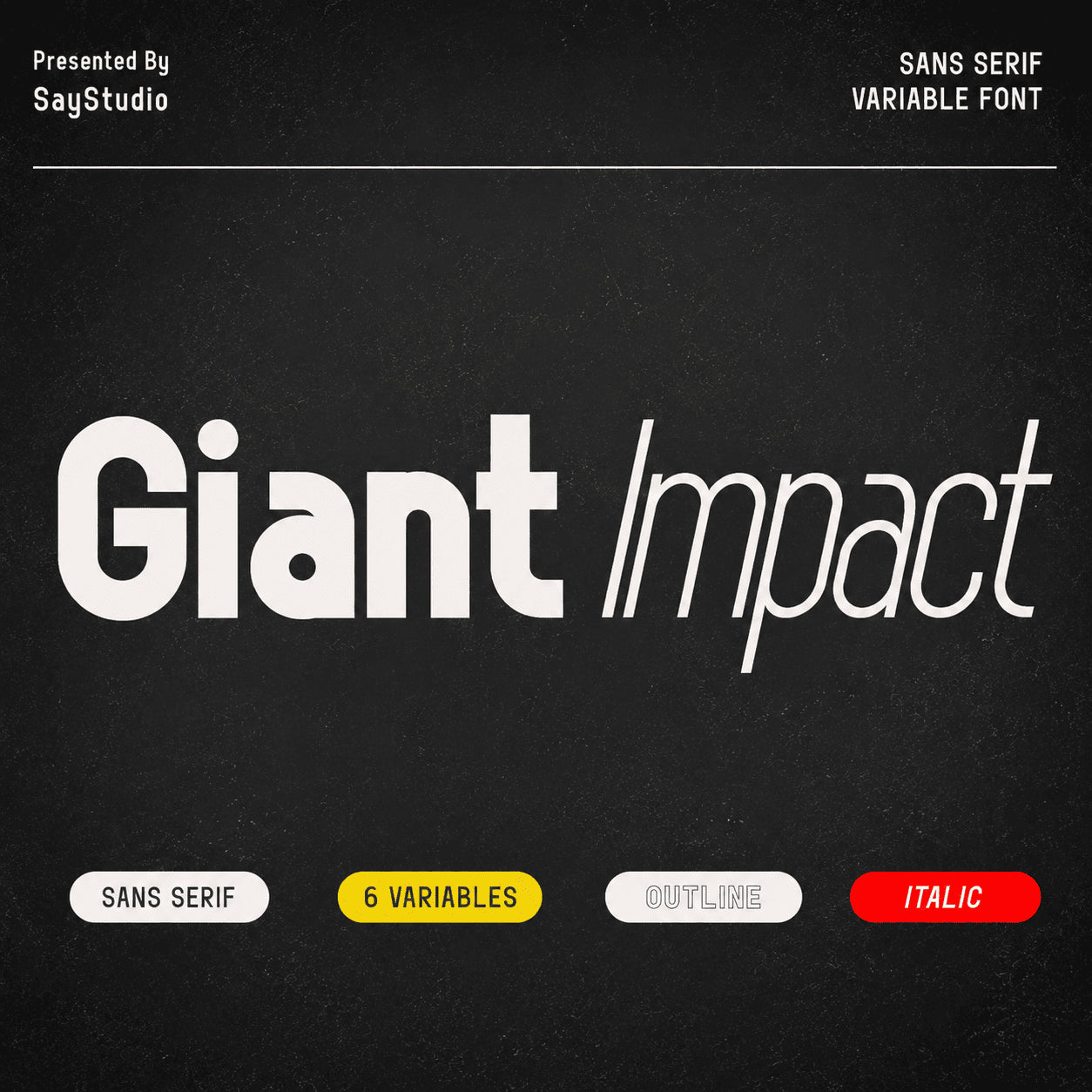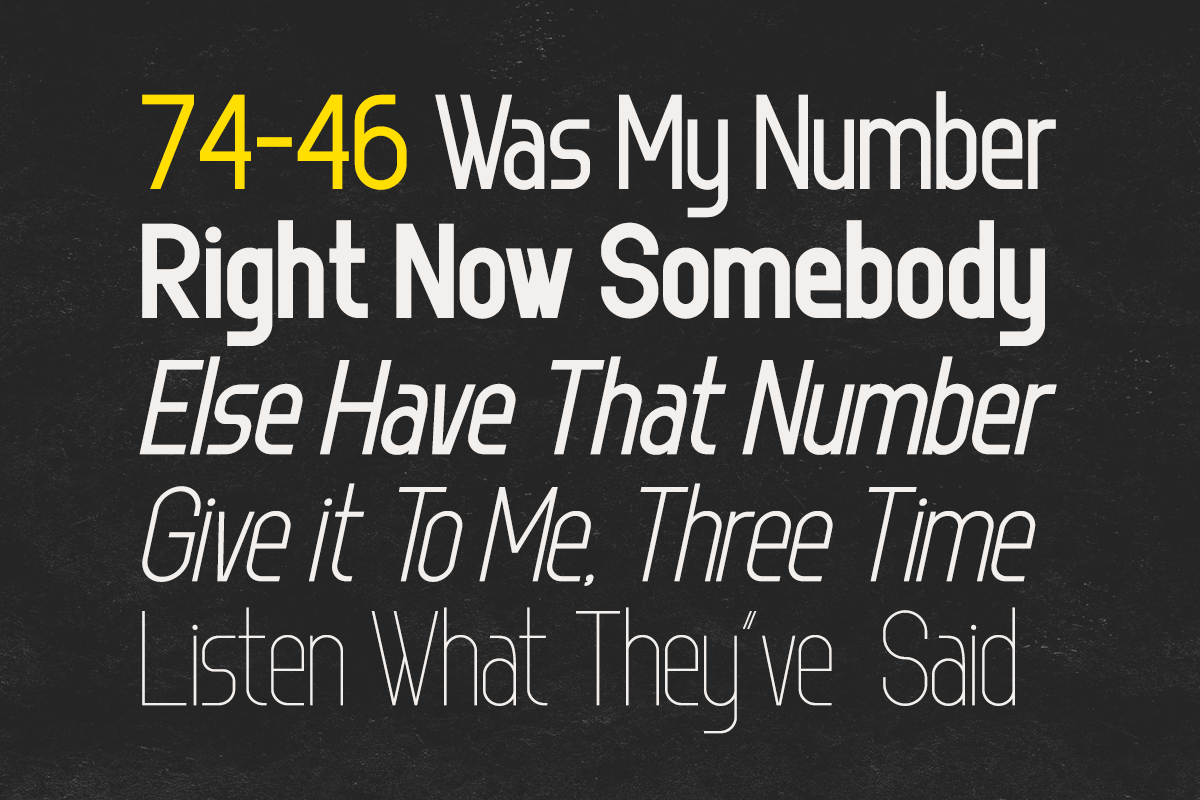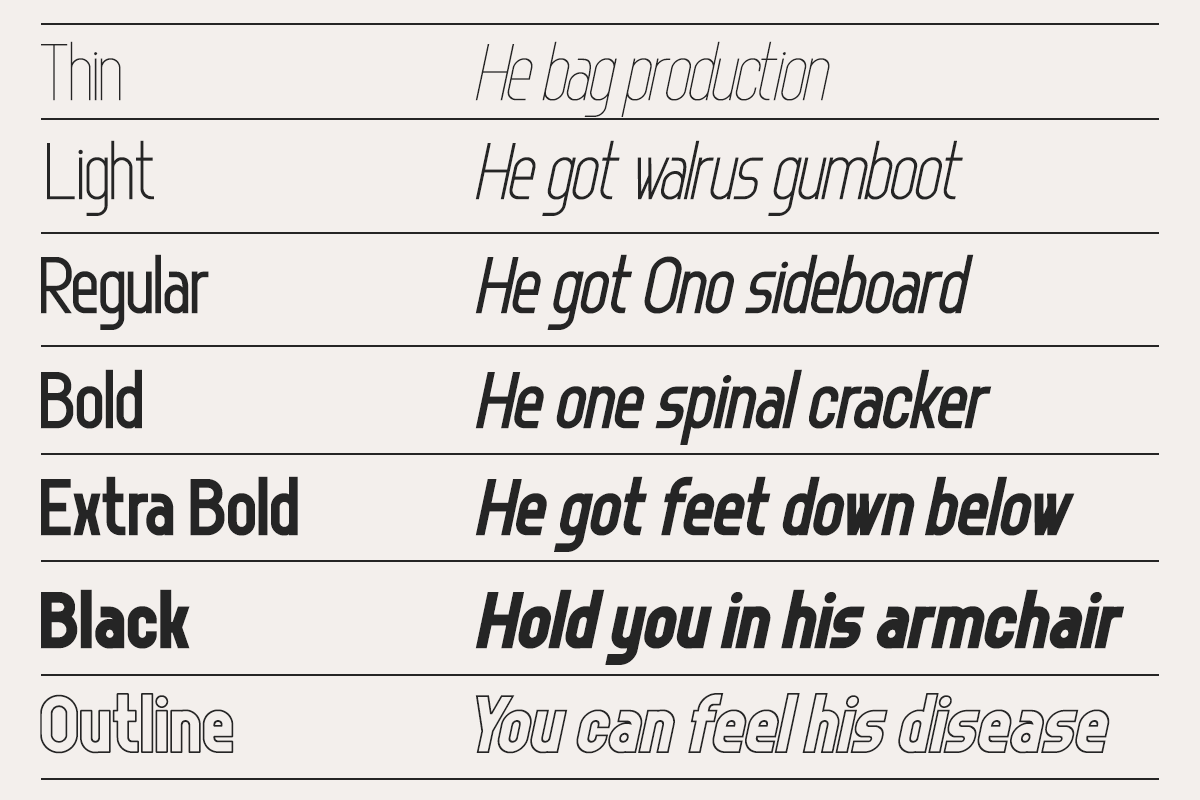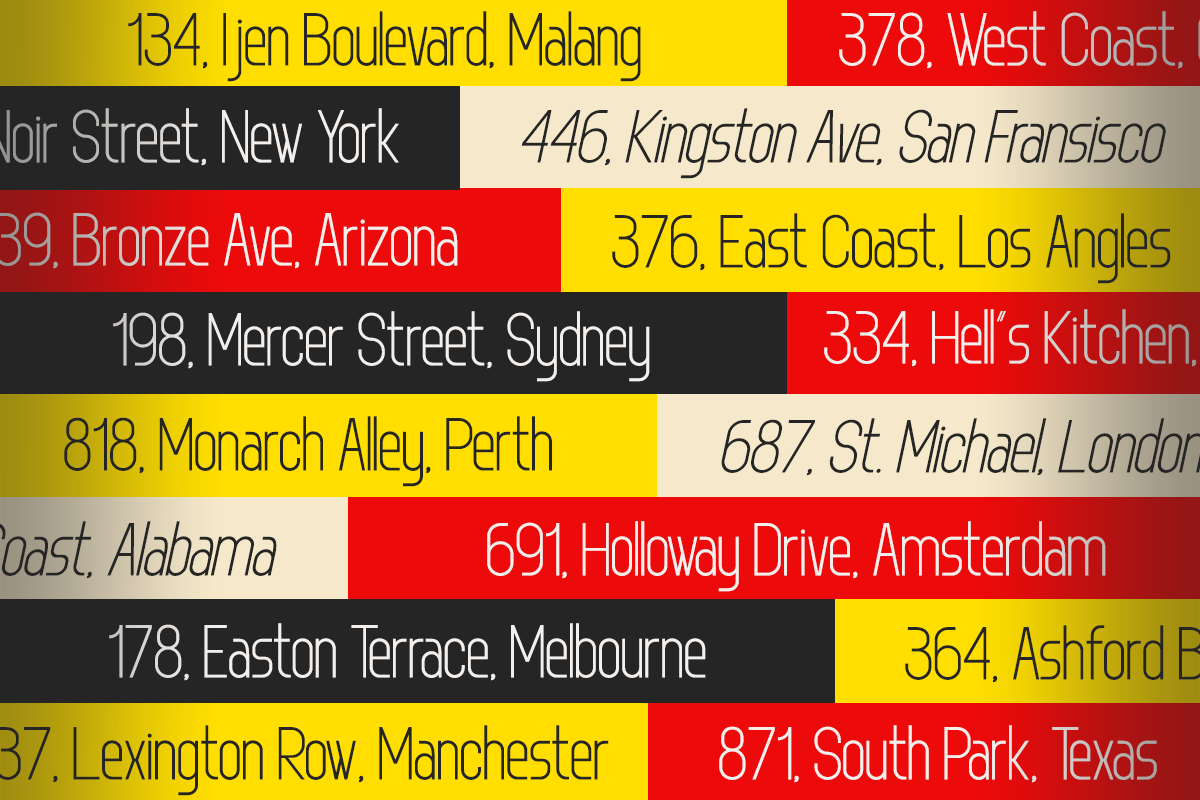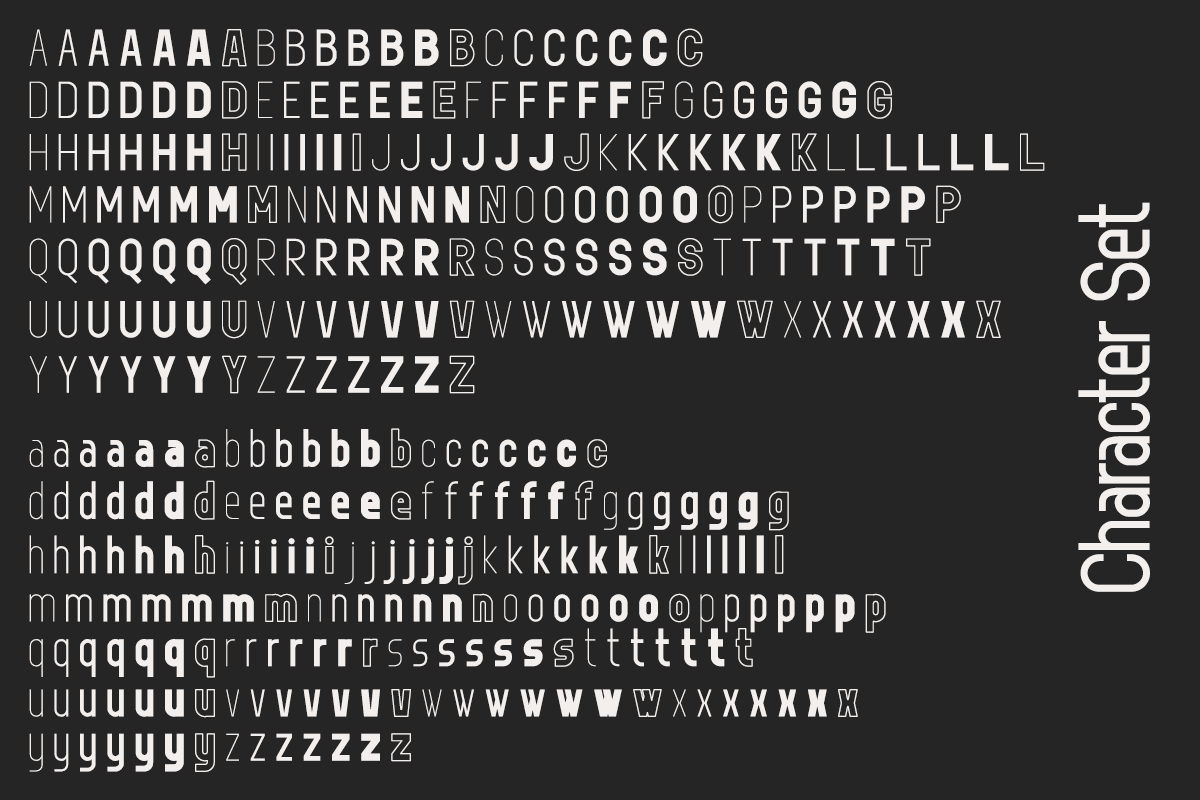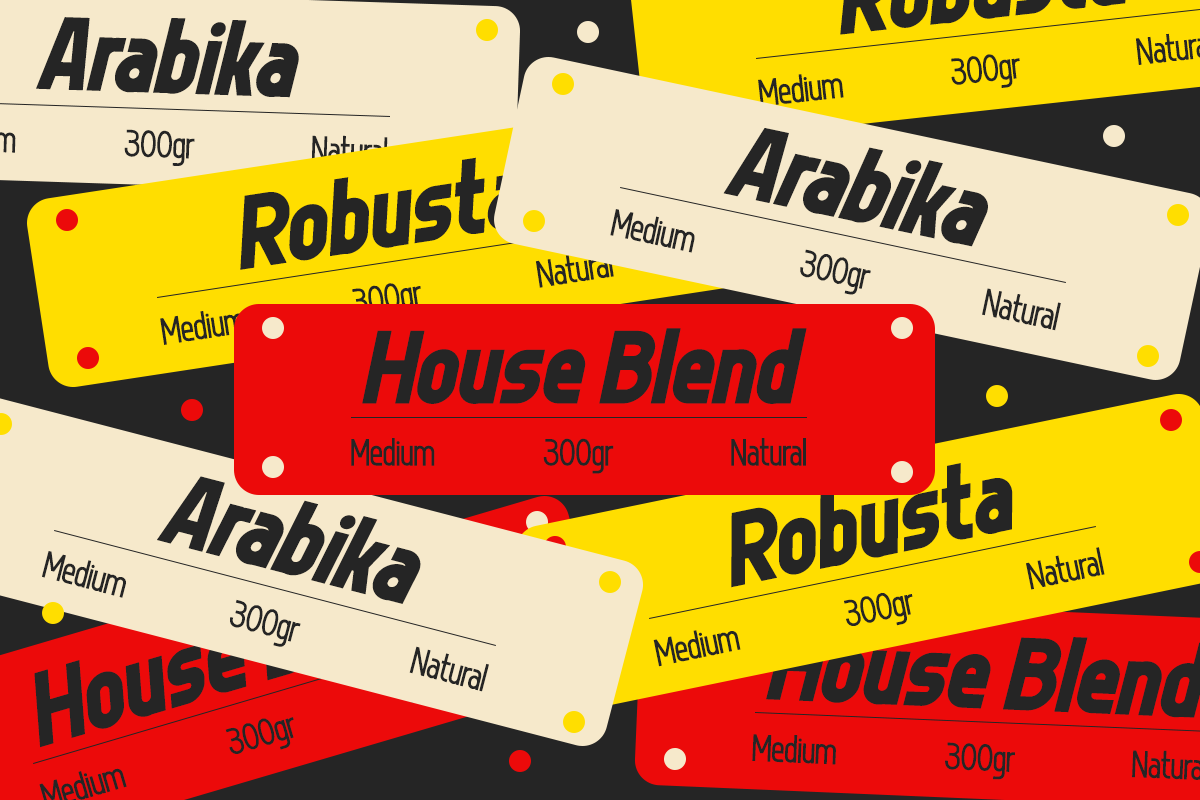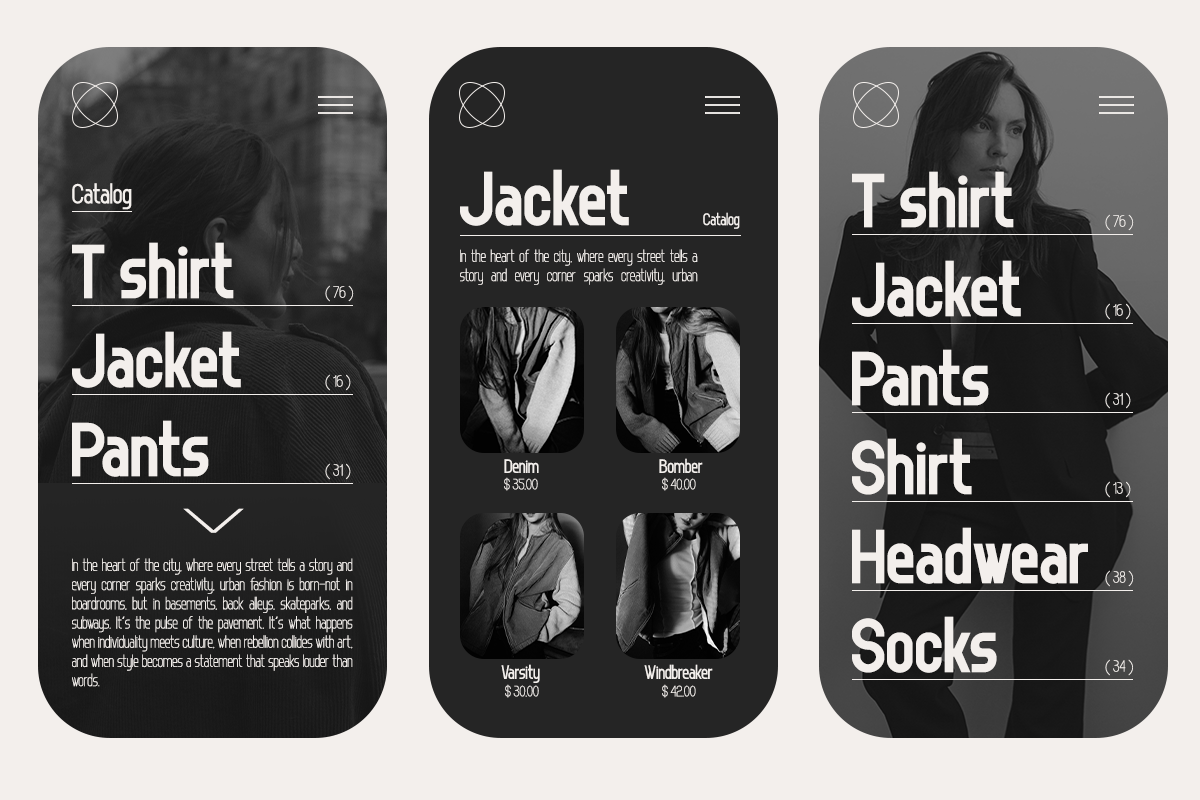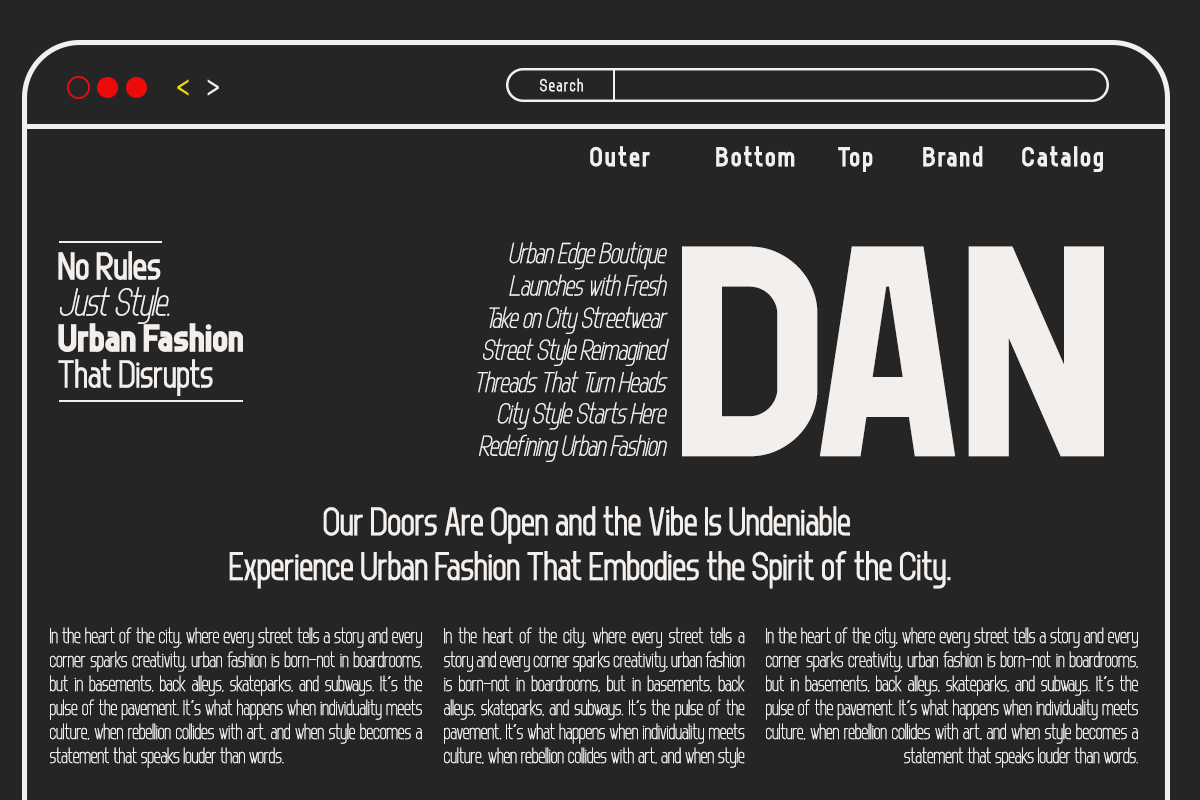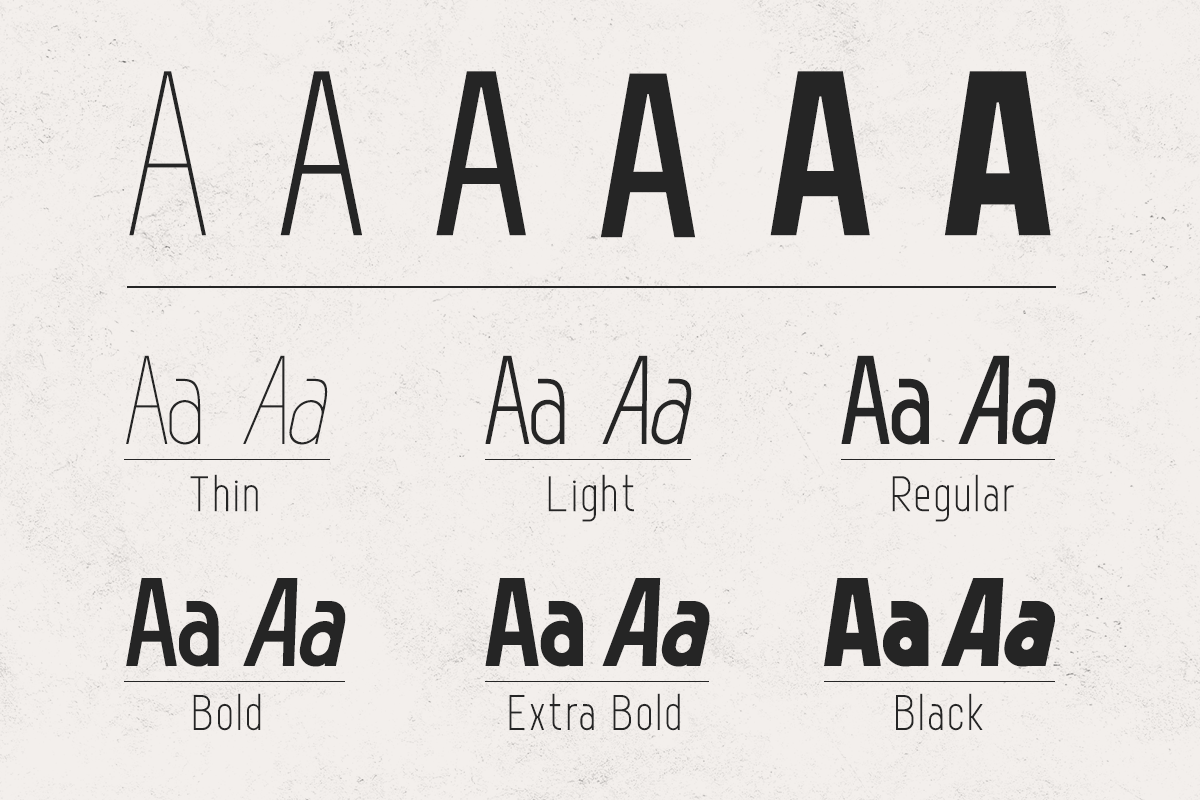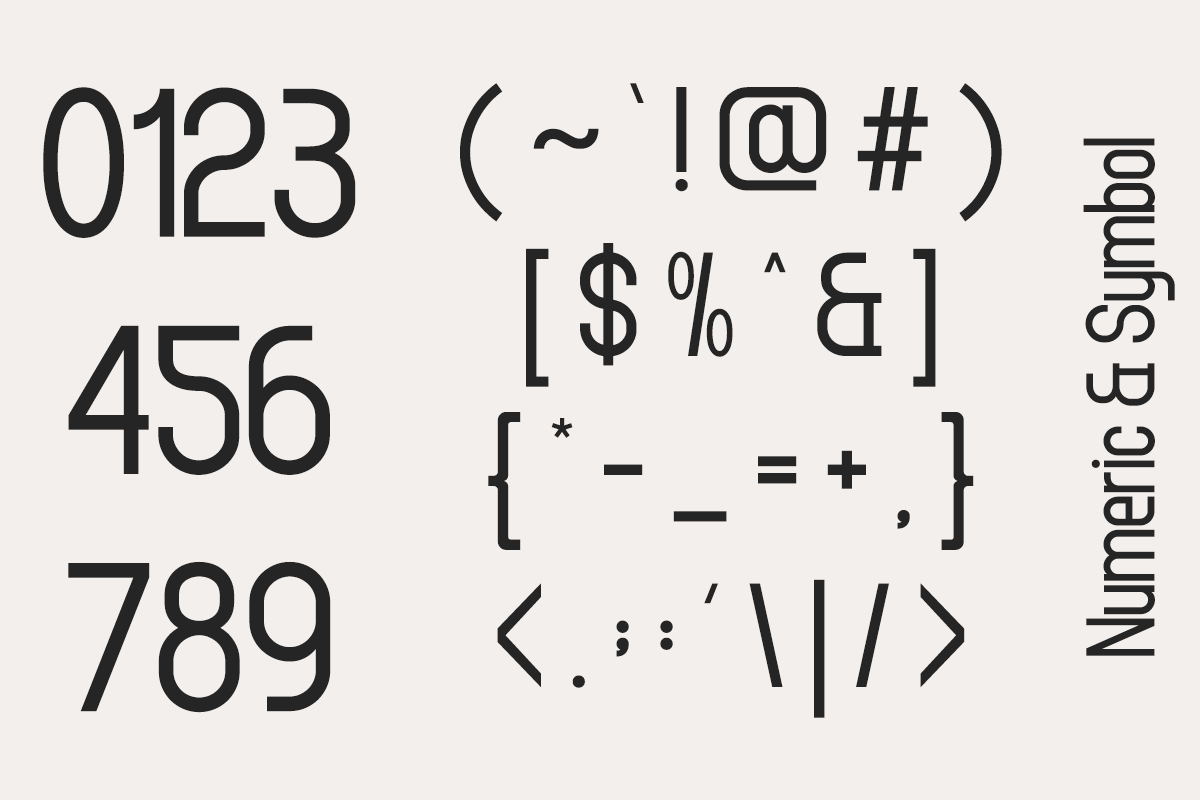
Giant Impact - Variable Condensed Sans Serif Font
Giant Impact is a bold variable condensed sans serif font designed for powerful headlines, expressive typography, and impactful visual communication. Its narrow proportions, strong presence, and versatile variable weight make it ideal for modern design projects that need a confident and dynamic typographic style.
With a flexible range of weights, Giant Impact gives you greater control over typography while maintaining a consistent condensed character. From lightweight editorial compositions to heavy display headlines, it adapts easily to different visual directions.
Perfect for posters, branding, logos, editorial design, magazine layouts, advertising, packaging, apparel, sports graphics, social media designs, headlines, and display typography.
6 Variable Weights
Regular, Italic, and Outline Style
Giant Impact is a bold, condensed sans serif variable font with 6 weights, including Regular, Italic, and Outline styles. It includes uppercase and lowercase characters, numbers, symbols, punctuation, and multilingual support, and is available in OTF, TTF, and WOFF formats.